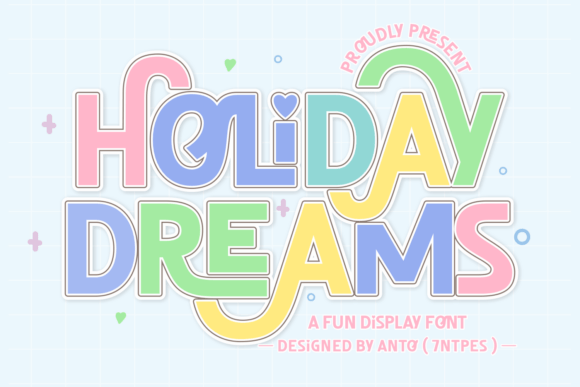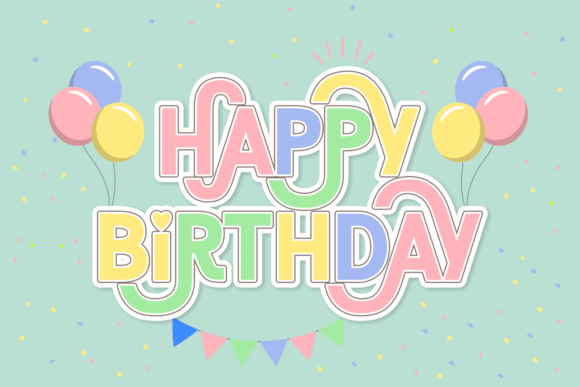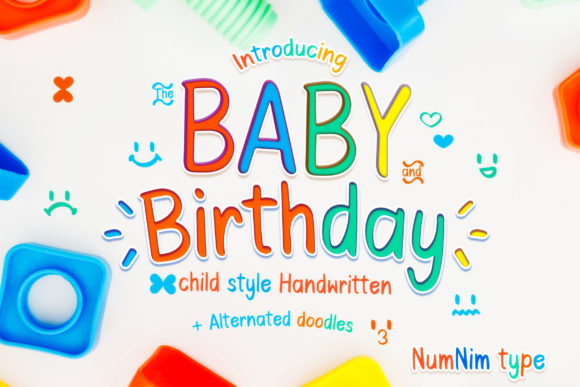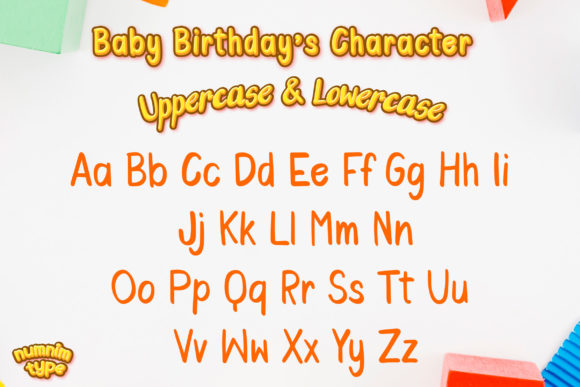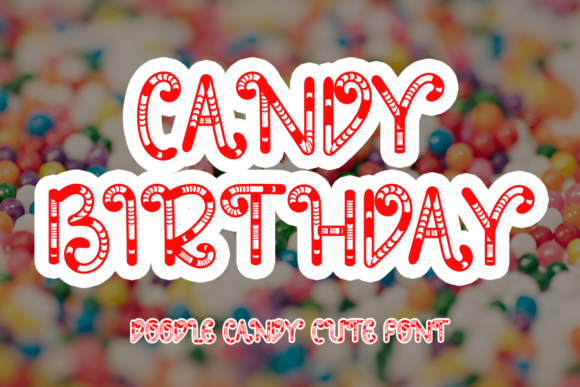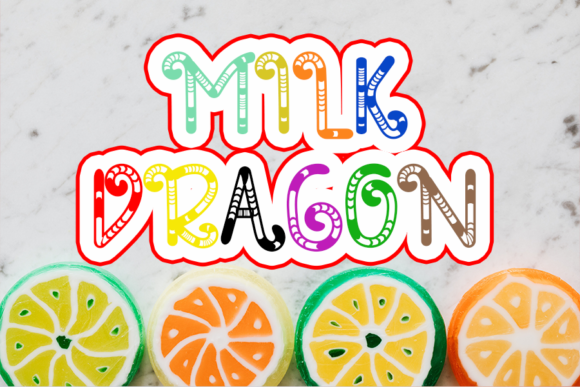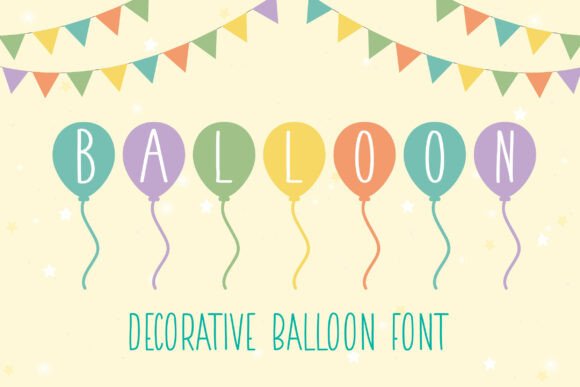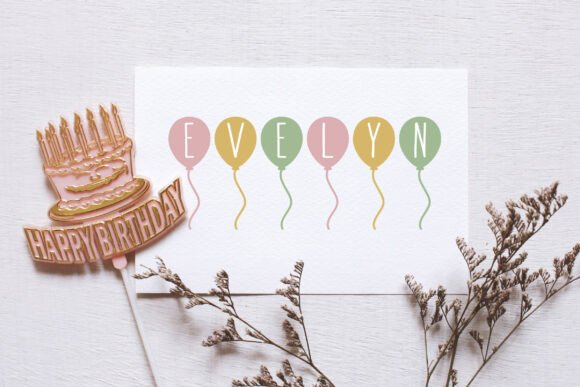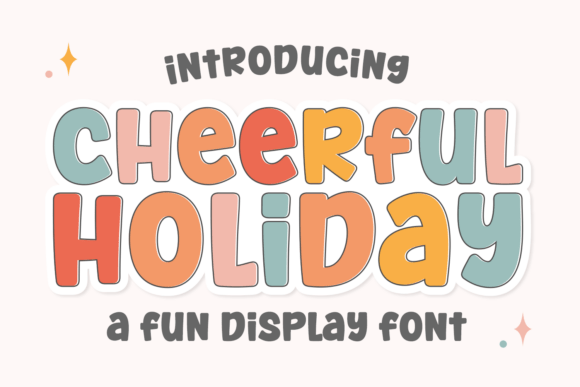
23 Best Birthday Joyful Fonts to Make Your Celebrations Unforgettable
When it comes to planning the perfect milestone, typography sets the tone before the first guest even arrives. Finding the right Birthday Joyful Fonts can elevate your invitations, party banners, and gift tags from ordinary to extraordinary. Whether you are designing for a whimsical children’s bash or a nostalgic retro-themed party, the typeface you choose becomes the visual voice of your event. In this curated guide, we explore 23 exceptional options that bring charm, excitement, and a celebratory spirit to every pixel of your creative projects.
Elevate Your Designs with Birthday Joyful Fonts
Typography is the heart of visual communication in celebration design. By selecting the right style, you ensure your message resonates with happiness and anticipation.
Holiday Dreams Font
This Birthday Joyful Font captures a festive spirit and whimsical charm, making your typography projects feel truly celebratory and unique. It is the perfect choice for a sophisticated yet fun invite.
Baby Birthday Font
This delightful and playful typeface is perfect for crafting celebratory designs, party invitations, and decorations. Its soft curves make it a staple in any collection.
Candy Birthday Font
This playful and festive typeface is perfect for creating vibrant invitations and decorations. It perfectly embodies the classic style expected from high-quality Birthday Joyful Fonts.
Balloon Font
Nothing says “party” quite like balloons. This typeface is perfect for creating a festive atmosphere in your design projects, perfectly capturing the spirit of celebration.
Cheerful Holiday Font
The Cheerful Holiday typeface is ideal for greeting cards and children’s projects. It infuses your work with a sense of cheer and pure playfulness.
Unique Robots Font
Looking for something quirky? These unique robotic letterforms add a distinct, celebratory touch to any design, making them a standout among Birthday Joyful Fonts.
Unicorn Lover Font
Unicorn Lover is an enchanting typeface that adds magic to any project. Its charming character design is ideal for festive children’s celebrations.
Comic Book Font
This energetic typeface turns birthday greetings into vibrant, dynamic stories. It’s a fun, joyful choice for those who love a pop-art aesthetic.
Emilya Birthday Font
Emilya Birthday is a quintessential Birthday Joyful Fonts selection. Its charming, whimsical letterforms are perfect for invitations and handmade decorations.
Oh My Darling Font
Fluid and cheerful, this typeface slides perfectly into any celebratory graphic. It’s an essential tool for designers aiming for a lighthearted appeal.
Fruit Juice Font
High energy meets pure fun. This typeface is a vibrant choice for any creative endeavor requiring a fresh, joyful aesthetic.
Baby Shark Font
Add youthful energy and charm to your layouts with this iconic style, fitting perfectly into the Birthday Joyful Fonts niche.
Joyful Turkey Font
Playful and warm, this typeface brings a cozy yet celebratory spirit to your designs. It is an excellent hidden gem for seasonal parties.
Retro Birthday Font
Nostalgia is always in style. This retro-inspired font infuses any project with joyful energy and timeless charm.
Birthday Party Font
Captivating and fun, the Birthday Party font is a versatile choice for designers. It brings genuine cheer to invitations and decorations alike.
Birthday Boy Font
This playful and festive font is a must-have for designing thematic projects within the wide range of available Birthday Joyful Fonts.
Comic Bubble Font
Energetic and punchy, Comic Bubble adds that perfect, whimsical touch to greeting cards and party signage.
Birthday Bubble Font
If you want a bouncy, softened appearance, look no further. This font gives any heading an instantly joyful and celebratory feel.
Birthday Font
The classic “Birthday” font is all about vibrant, celebratory energy. It’s perfect for any occasion that demands a joyful and clear message.
CuteBarbie Regular Font